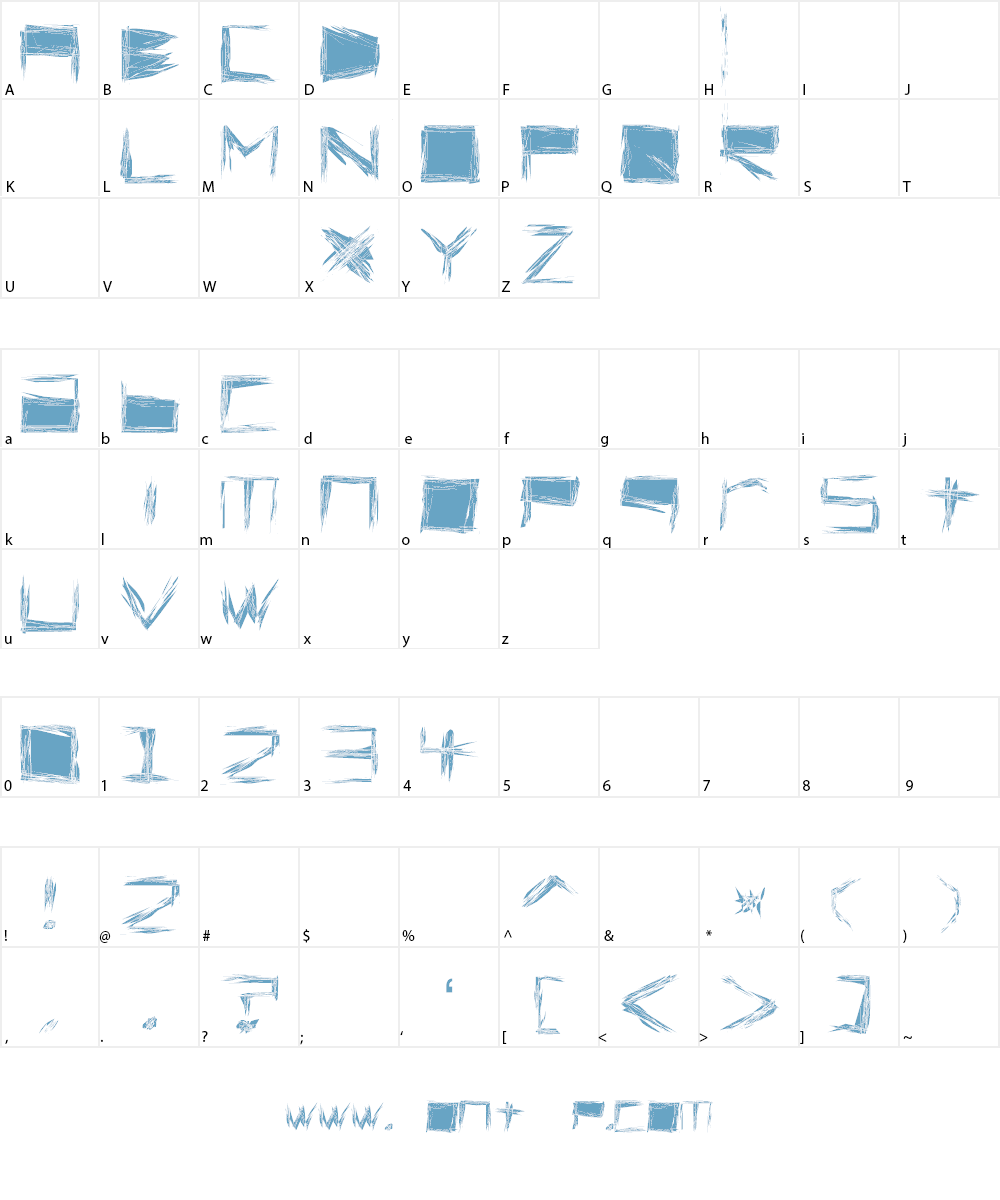
This font is pretty detailed and looks good at large sizes as a display font. But also try it for lines and lines of smaller text. That's where it earns its name.